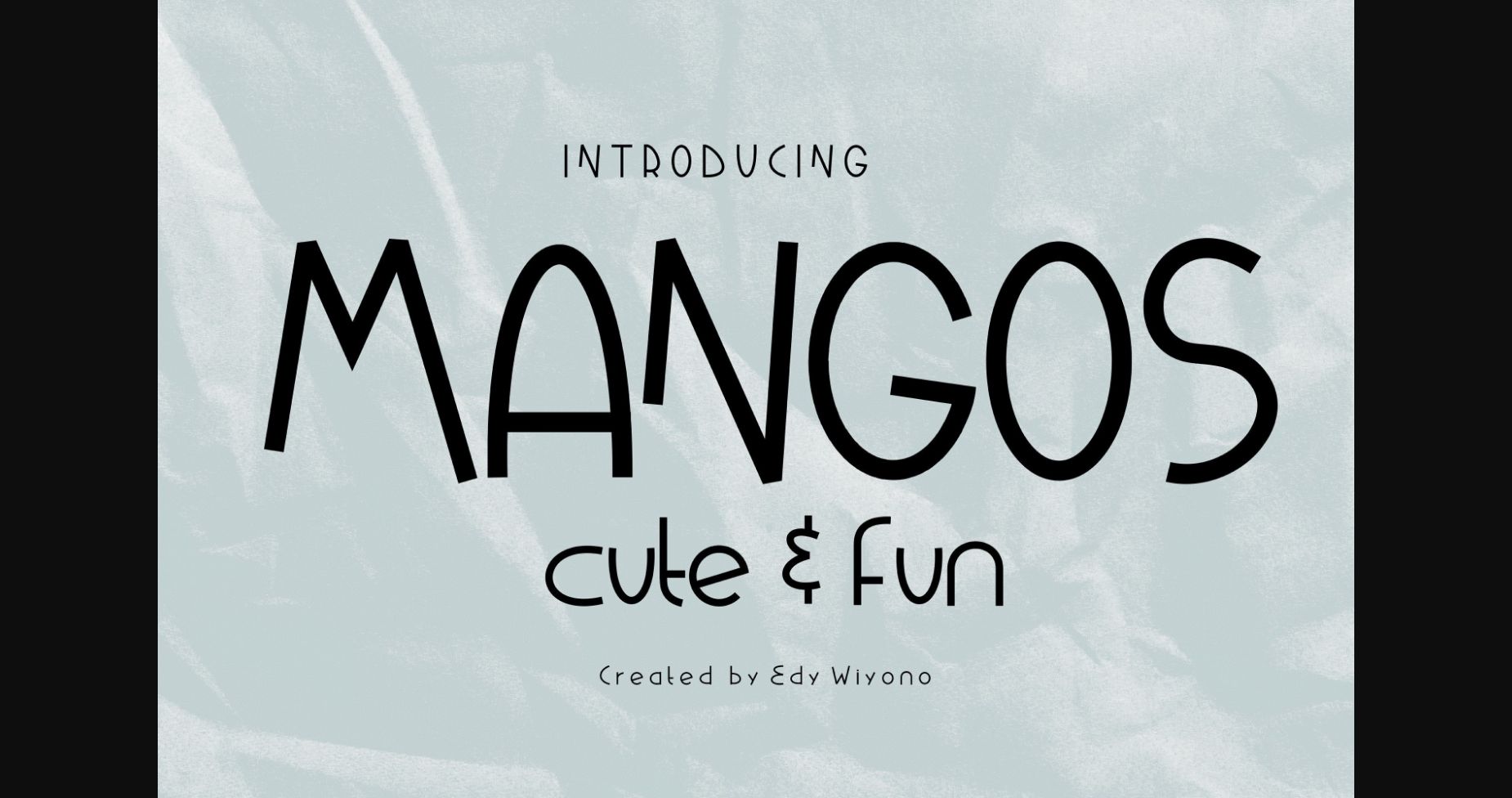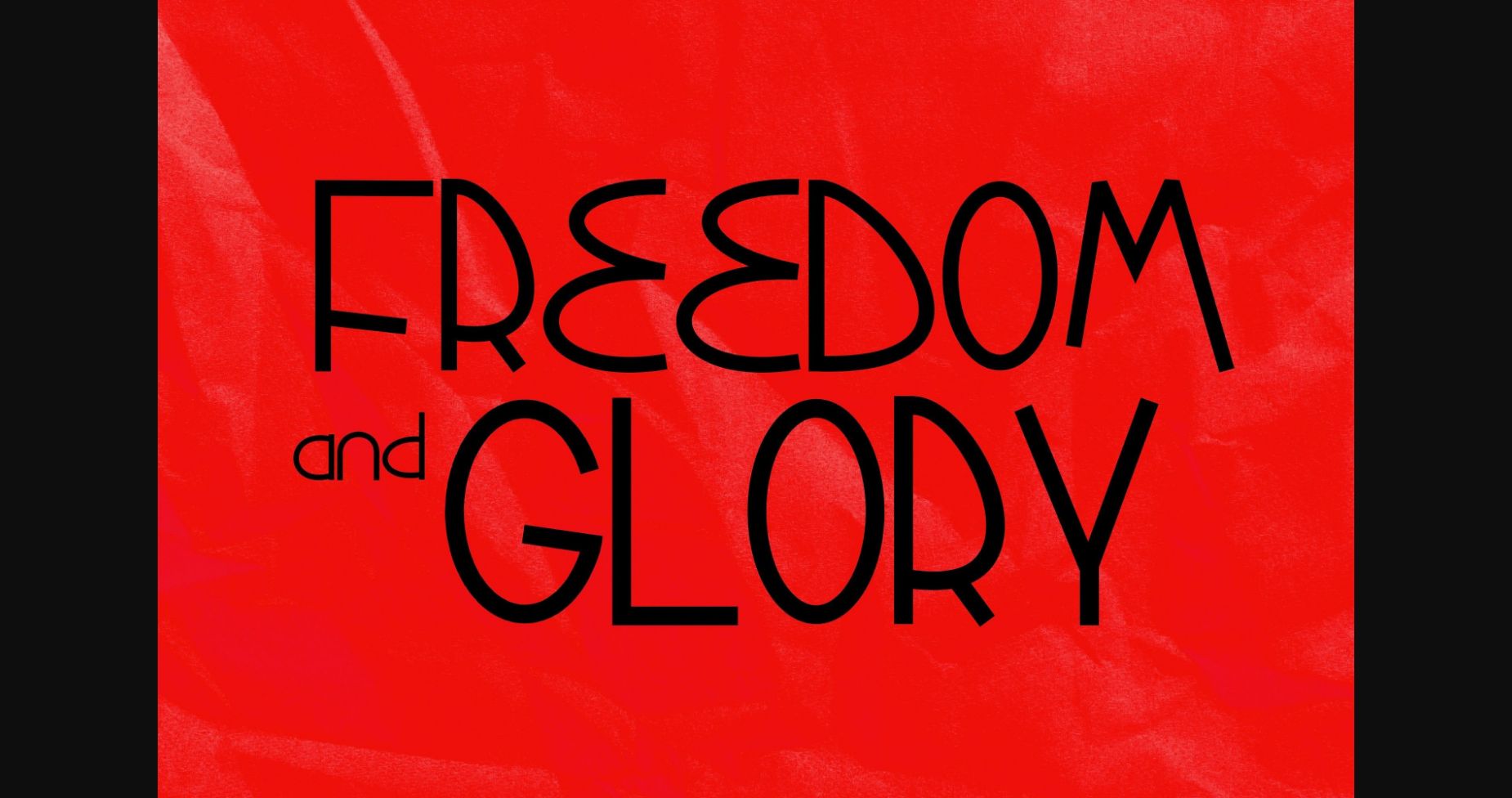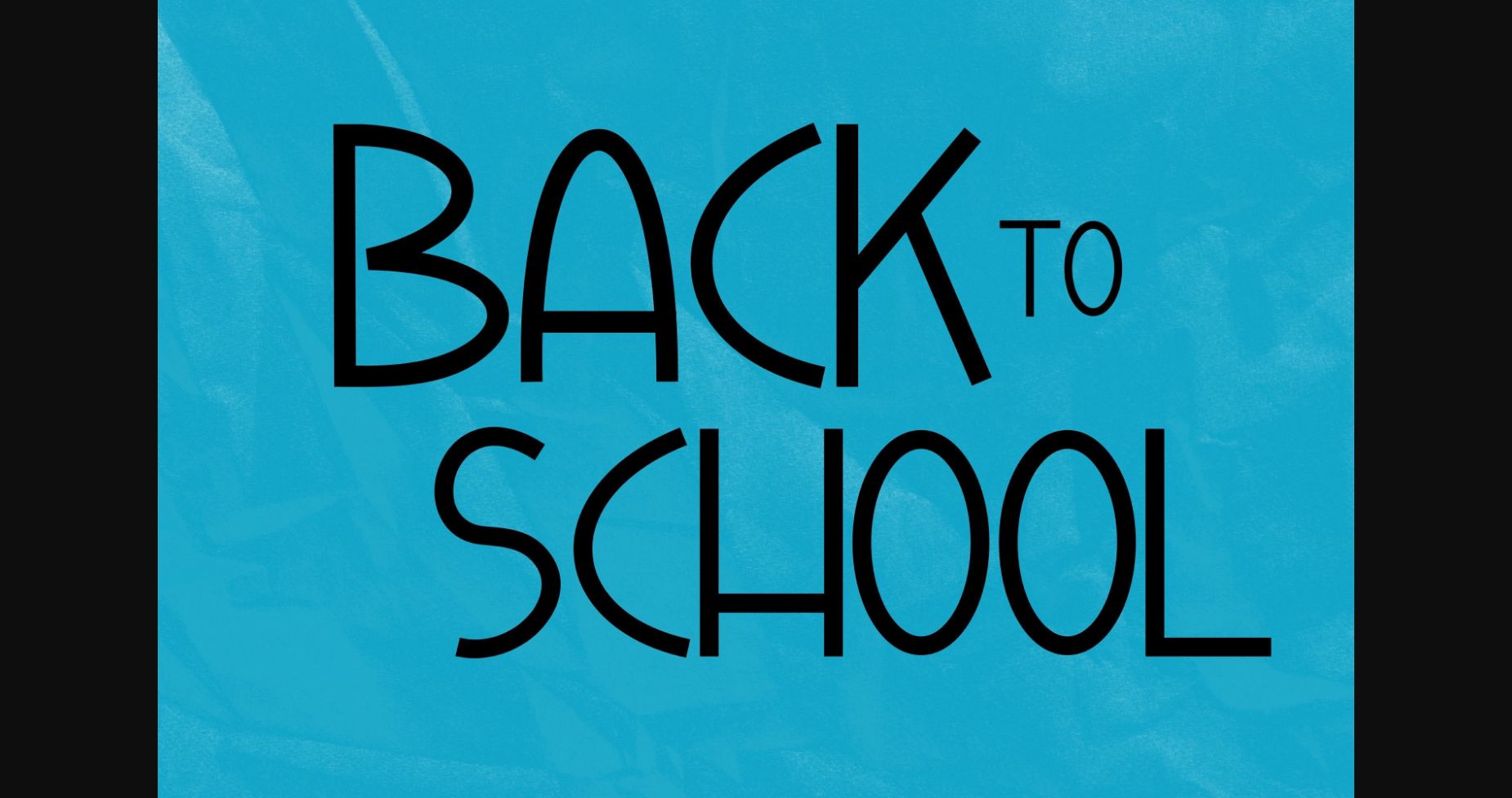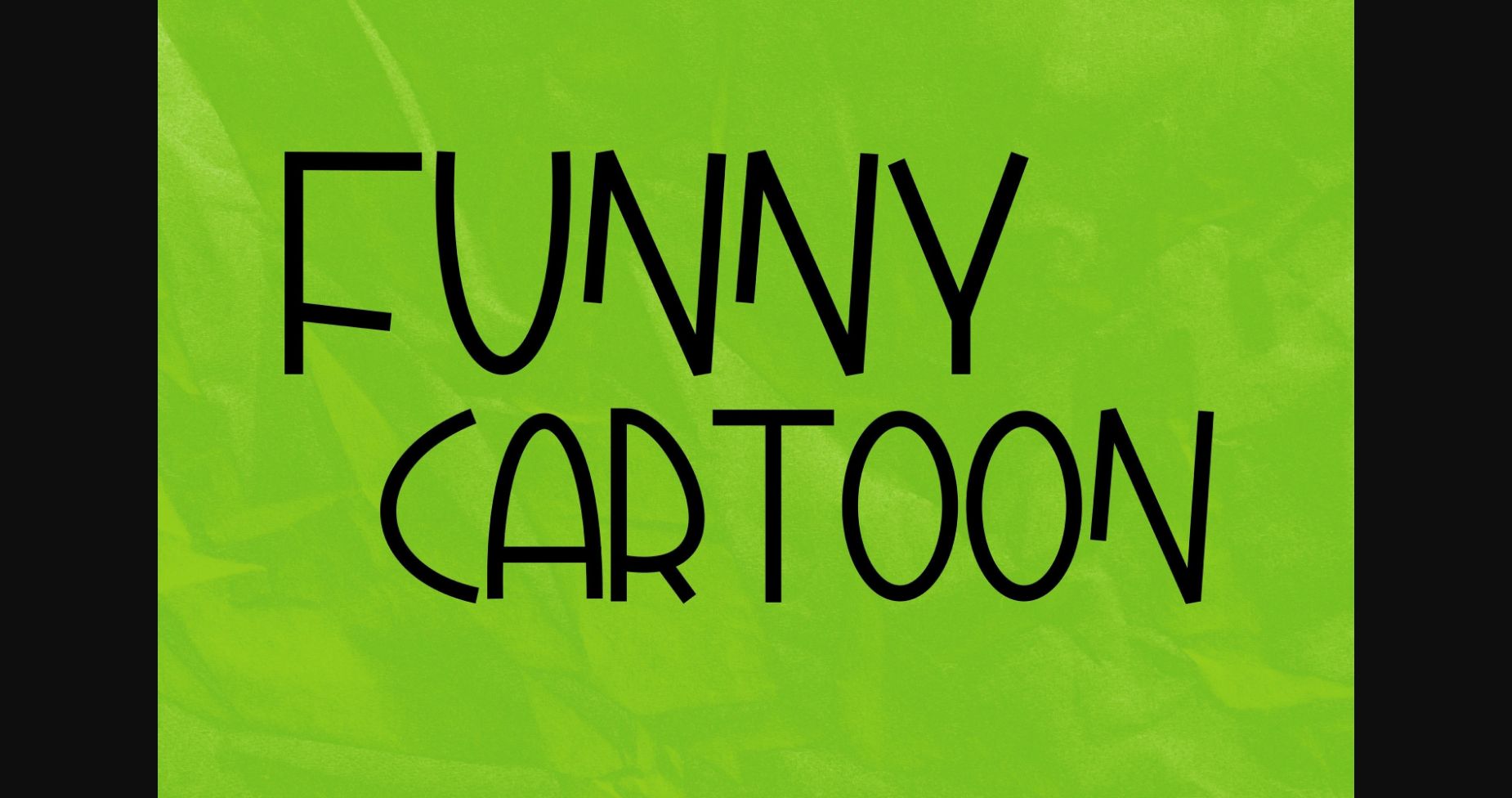
Mangos Font
About Mangos Font
Mangos is a font with cute and attractive cartoon characters. Whether you are using it for cartoon-related designs, children’s games, quotes, titles, brand names, book covers, posters, or just any creation that requires a touch of joy, this font is a great choice.